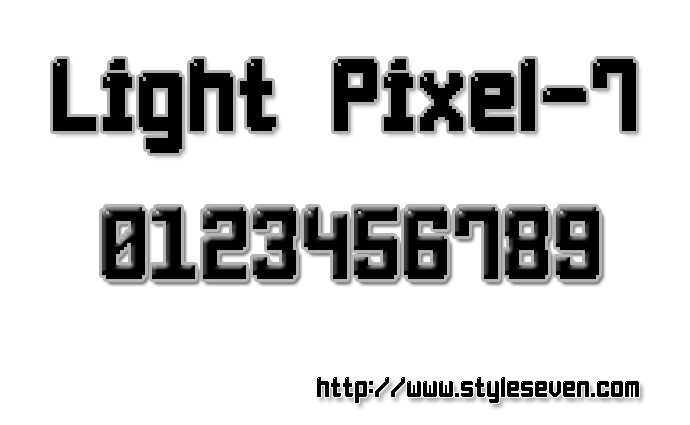
Light Pixel-7 by Style-7 is a free pixel font with tall, squared capitals and unusually open proportions. Its even strokes and blunt right-angle turns recall an early arcade scoreboard. Several letters use off-center cut-ins or narrow internal gaps.
Digital graphics are its clearest home, particularly game menus, tech event posters, and electronic-music album covers. Across those settings, its chunky, economical shapes point directly to low-resolution game worlds, control panels, and the homemade computer graphics of the early digital era and DIY electronic culture.
Light Pixel-7
Style-7
Sizenko Alexander